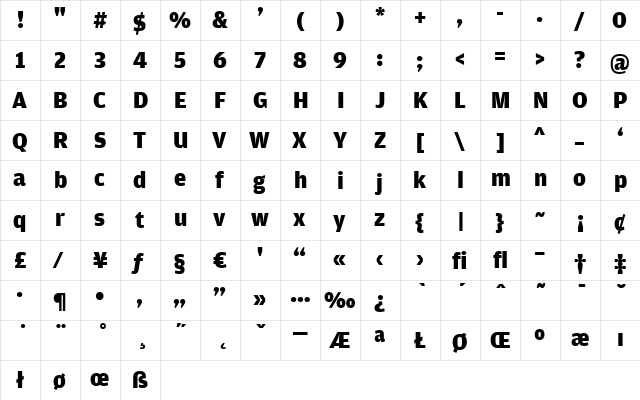
Amplitude-Black Regular
| Foundry | The Font Bureau, Inc |
| Designer | Christian Schwartz |
Design Context for Amplitude-Black Typeface
Amplitude-Black is a composed and adaptable typeface that performs quietly and consistently across a wide range of design contexts.